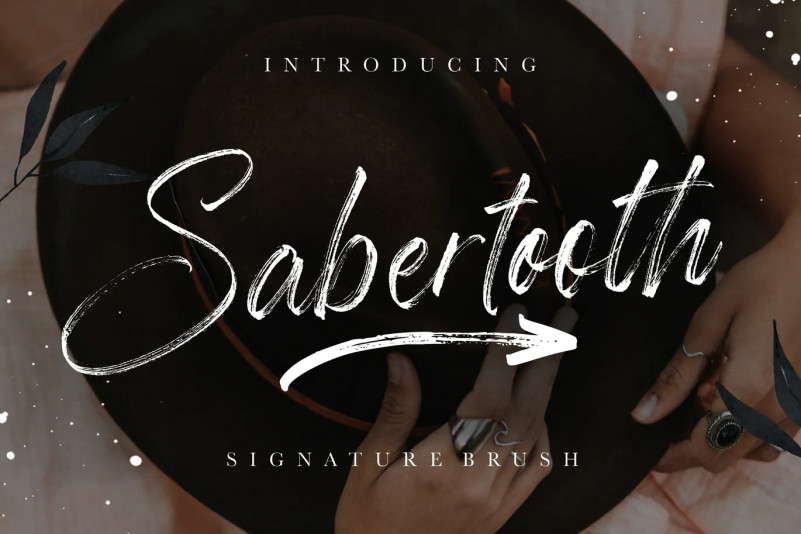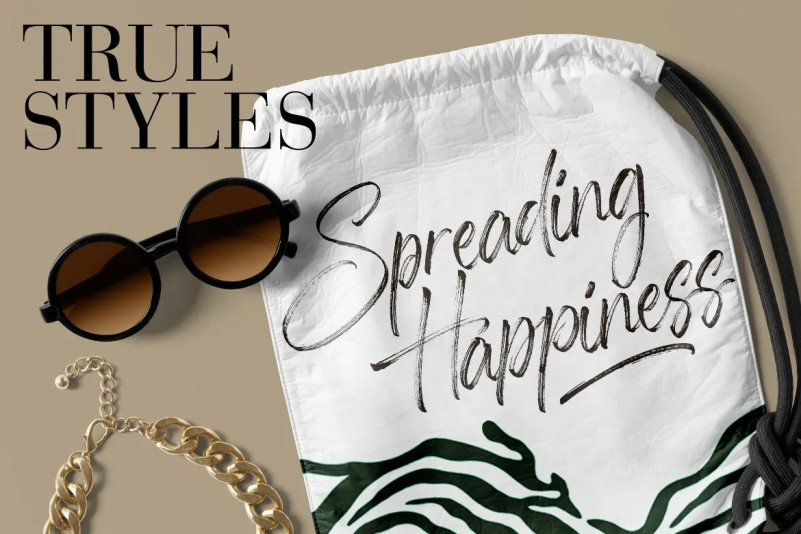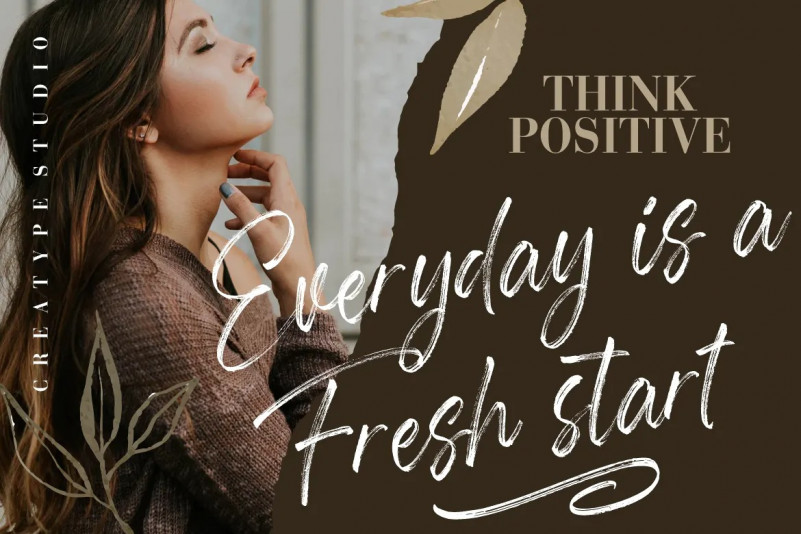
Sabertooth Font
Sabertooth is signature brush font made from natural hand brush that looks so modern but still elegant and modern.
Sabertooth is perfect for branding projects, logo, wedding designs, social media posts, advertisements, product packaging, product designs, label, photography, watermark, invitation, stationery and any projects that need handwriting taste.